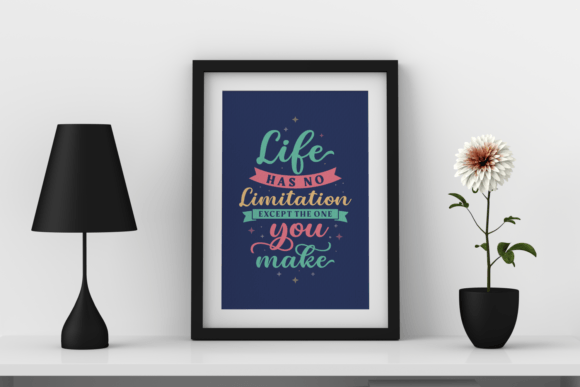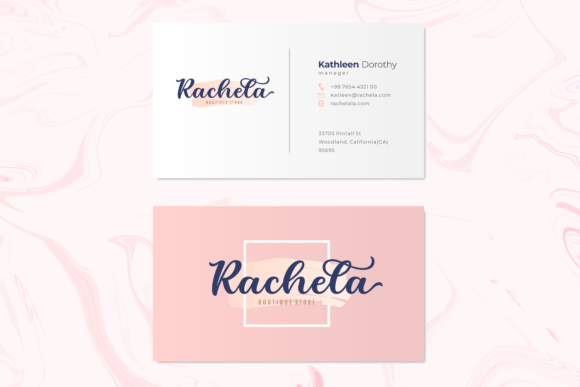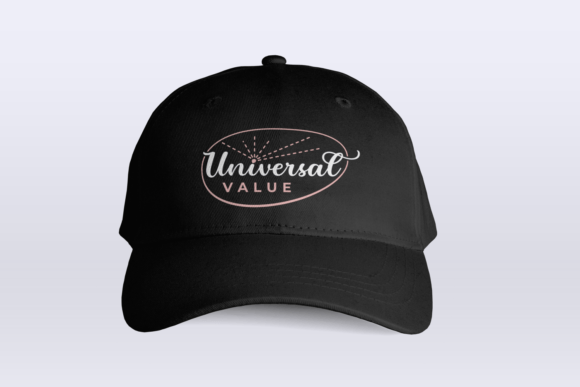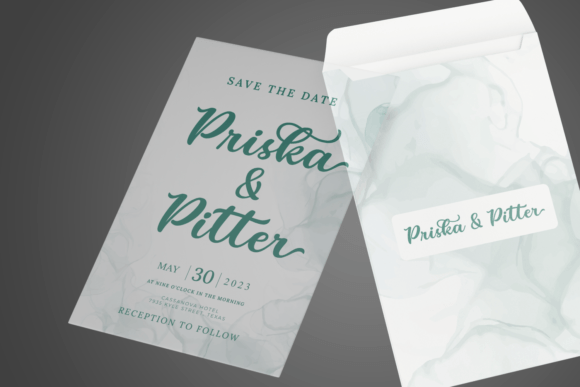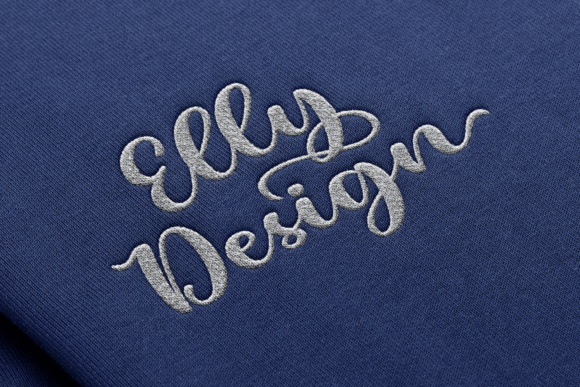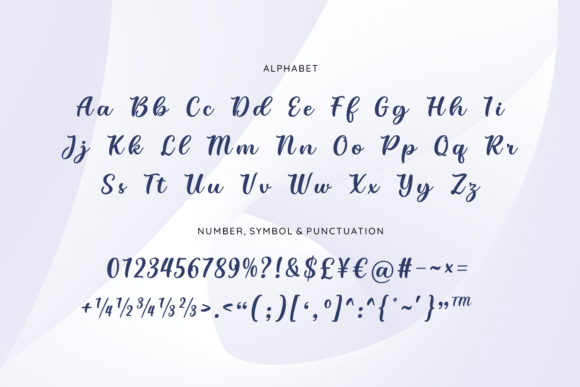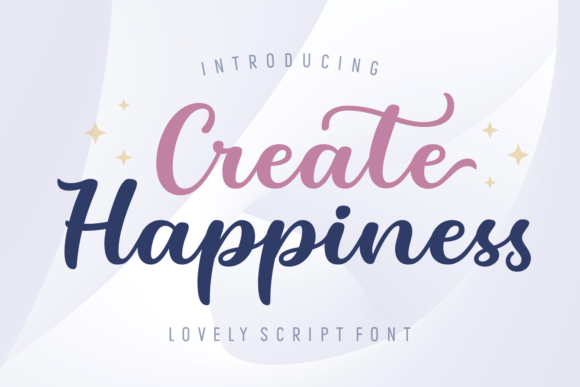
Create Happiness Font: The Ultimate Guide to Adding Joy to Your Designs
Are you a designer or crafter looking for a font that can add a touch of happiness and whimsy to your projects? Look no further than the Create Happiness font! This beautiful and charming script font is perfect for creating cute and dreamy designs that are sure to bring a smile to anyone’s face.
What is Create Happiness Font?
Create Happiness is a lovely script font that features a unique and charming design. The font includes a set of uppercase and lowercase letters, as well as a set of lowercase alternatives with extra special swirly end lines. This font is perfect for creating a wide range of designs, from invitations and greeting cards to social media graphics and blog posts.
Key Features of Create Happiness Font
• Beautiful and charming design: The Create Happiness font features a unique and elegant design that is sure to add a touch of happiness to your designs.
• Cute and dreamy: This font is perfect for creating designs that are cute and dreamy, making it ideal for projects such as invitations, greeting cards, and social media graphics.
• Lowercase alternatives: The font includes a set of lowercase alternatives with extra special swirly end lines, giving you even more options for creating unique and eye-catching designs.
Why Use Create Happiness Font?
So why should you use the Create Happiness font in your designs? Here are just a few reasons:
• Add a touch of happiness: The Create Happiness font is designed to bring a smile to people’s faces, making it perfect for projects where you want to add a touch of happiness and whimsy.
• Stand out from the crowd: With its unique and charming design, the Create Happiness font is sure to help your designs stand out from the crowd.
• Versatile: The Create Happiness font can be used for a wide range of projects, from invitations and greeting cards to social media graphics and blog posts.
Tips and Tricks for Using Create Happiness Font
Here are a few tips and tricks to help you get the most out of the Create Happiness font:
• Pair with other fonts: The Create Happiness font pairs well with other fonts, such as sans serif fonts or bold script fonts.
• Use for headlines and titles: The font is perfect for headlines and titles, adding a touch of happiness and whimsy to your designs.
• Experiment with colors: Try out different colors and color combinations to see what works best with the Create Happiness font.
• Add graphics and illustrations: The font pairs well with graphics and illustrations, adding an extra special touch to your designs.
The Create Happiness font is a beautiful and charming script font that is perfect for adding a touch of happiness and whimsy to your designs. With its unique and elegant design, PUA encoding, and lowercase alternatives, this font is sure to help you create cute and dreamy designs that stand out from the crowd. So why not give it a try and see the happiness it can bring to your designs?